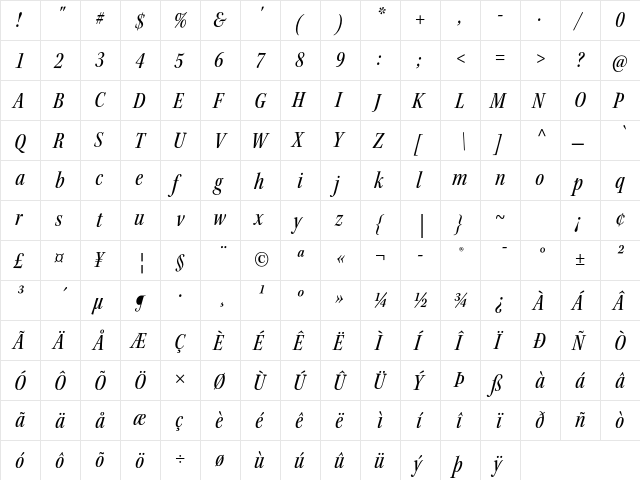
Kepler Std Medium Condensed Italic Subhead Font Preview
Kepler Std Medium Condensed Italic Subhead
Kepler Std Medium Condensed Italic Subhead Font Details
| Style | Medium Condensed Italic Subhead |
| Designer | Robert Slimbach |
Design Context for Kepler Std Typeface
Kepler Std is a composed and adaptable typeface that performs quietly and consistently across a wide range of design contexts. Its italic angle brings a sense of urgency and motion to the letterforms. Its narrow stance lets it pack a punch even in space-constrained designs.
Pro Tip: Use Kepler Std for emphasis, pull quotes, and subheadings where its slanted energy can add rhythm to the layout.